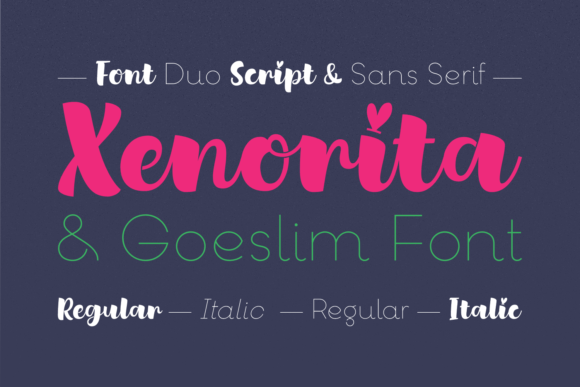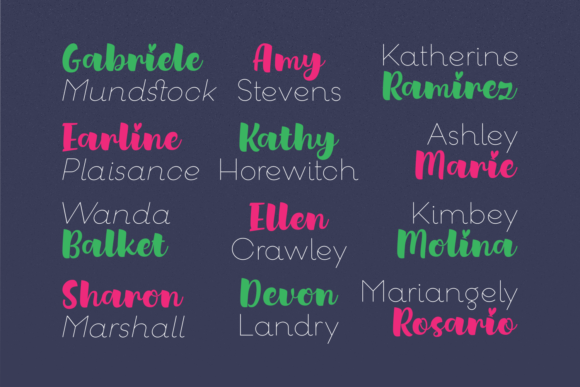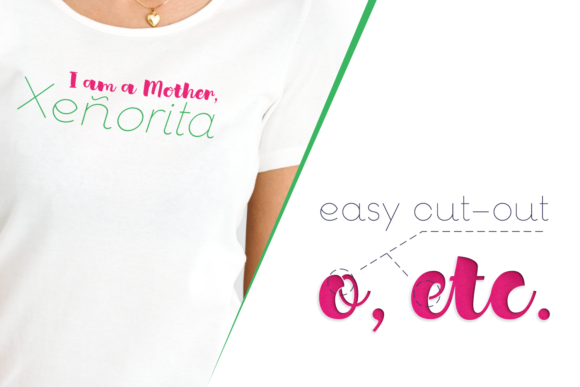
Xenorita & Goeslim Duo Font
Xenorita & Goeslim is a fun and beautiful font duo. It combined a stunning script and a friendly serif font into a one-of-a-kind set!